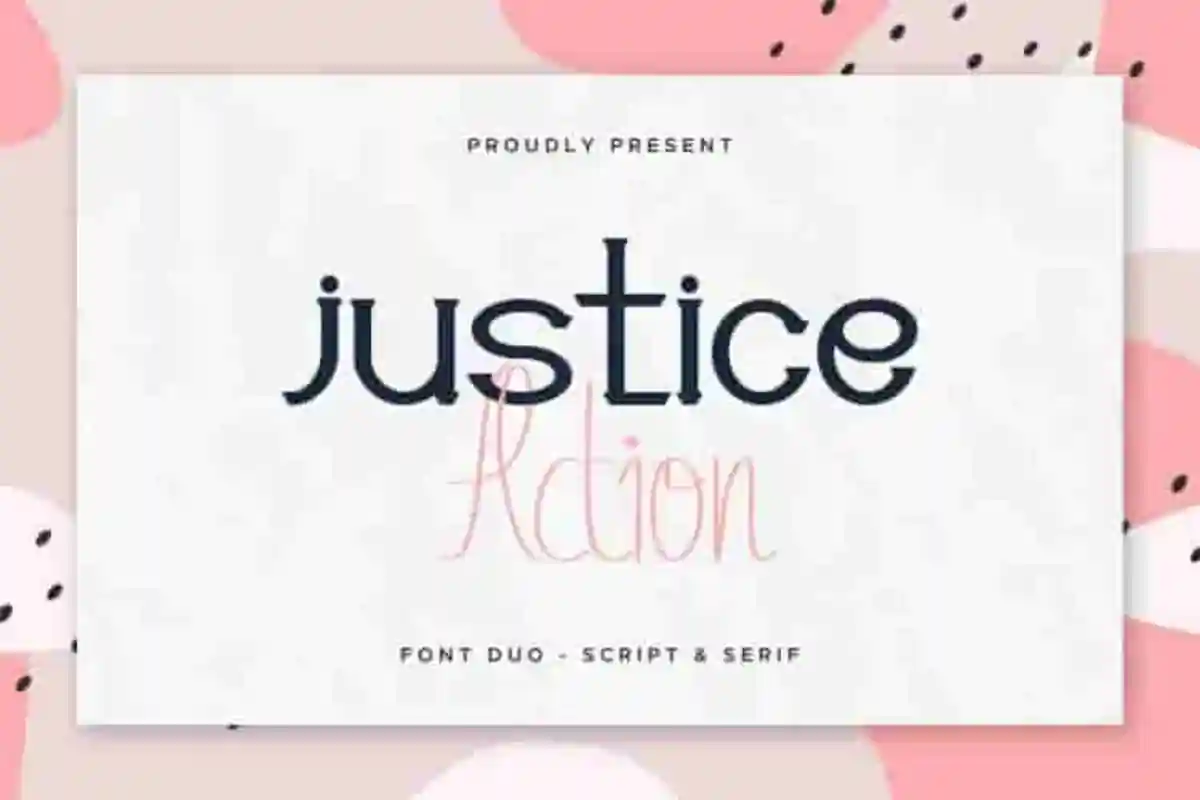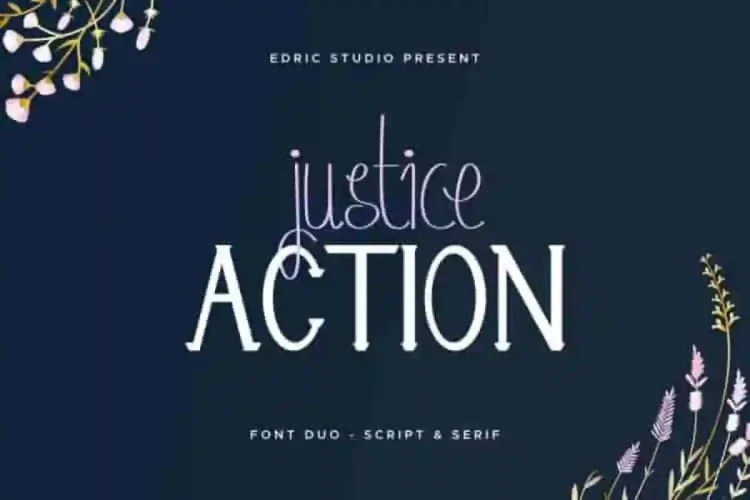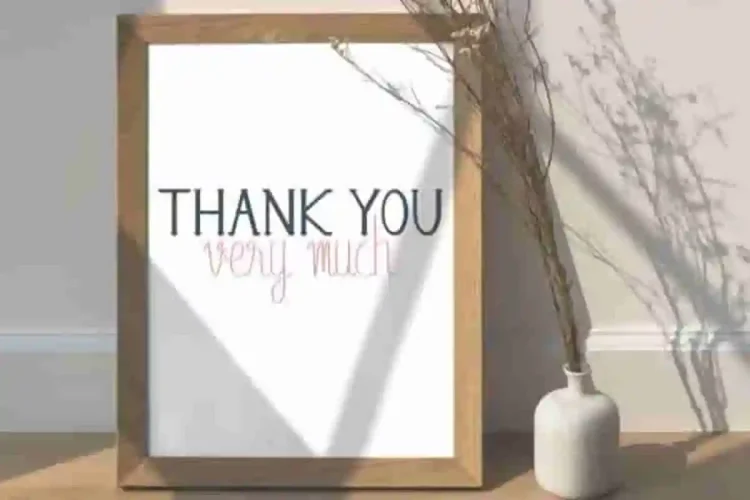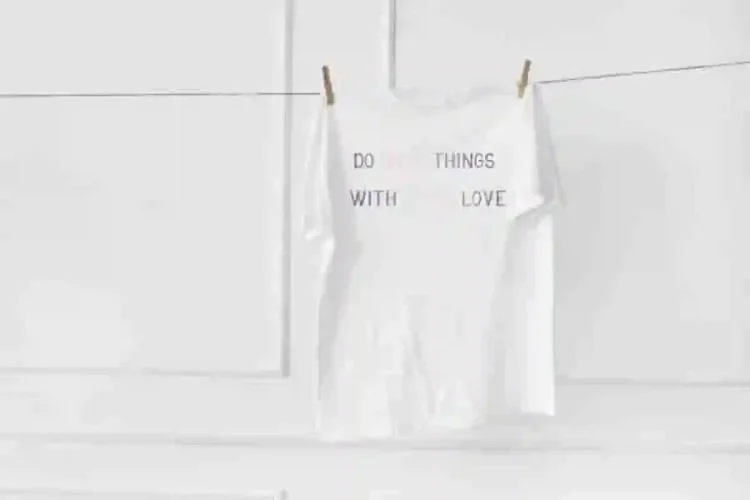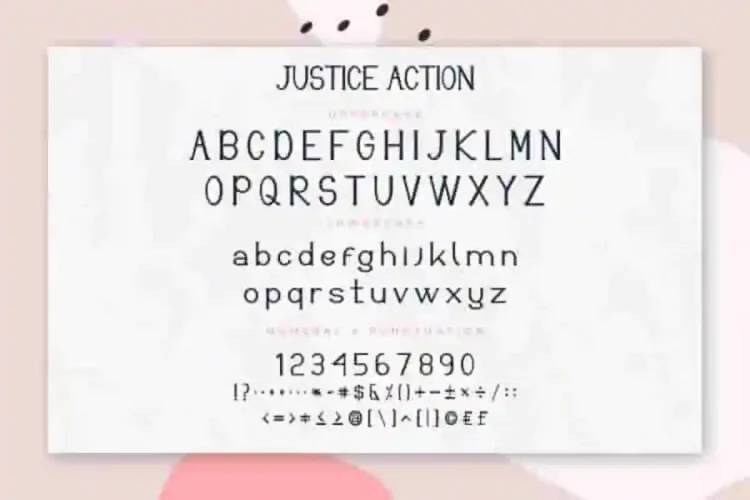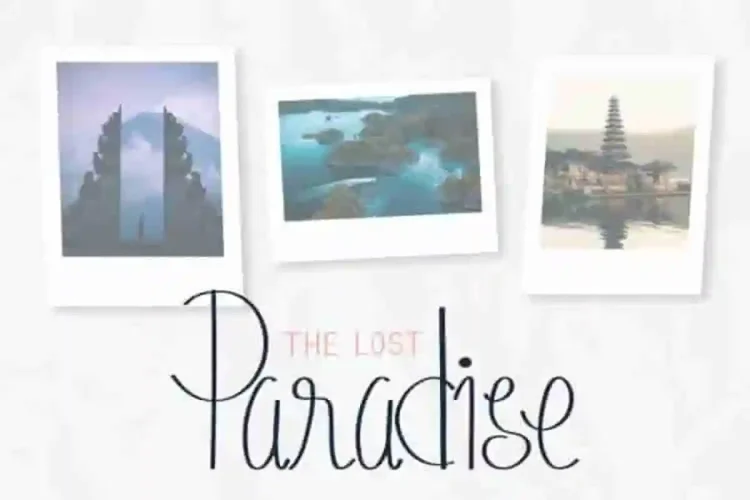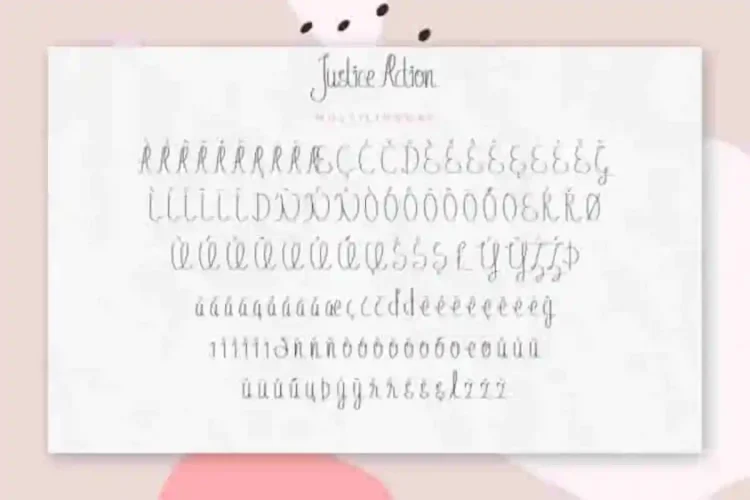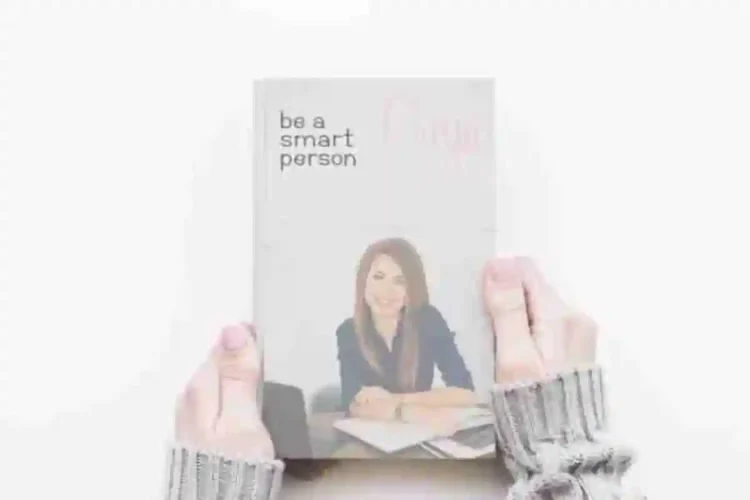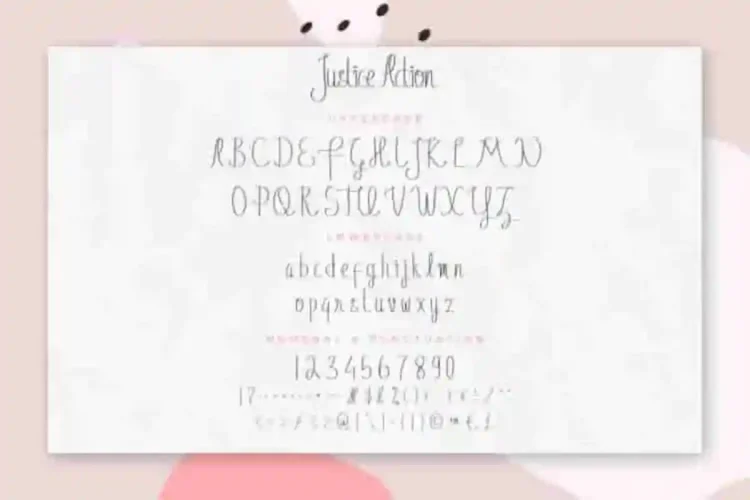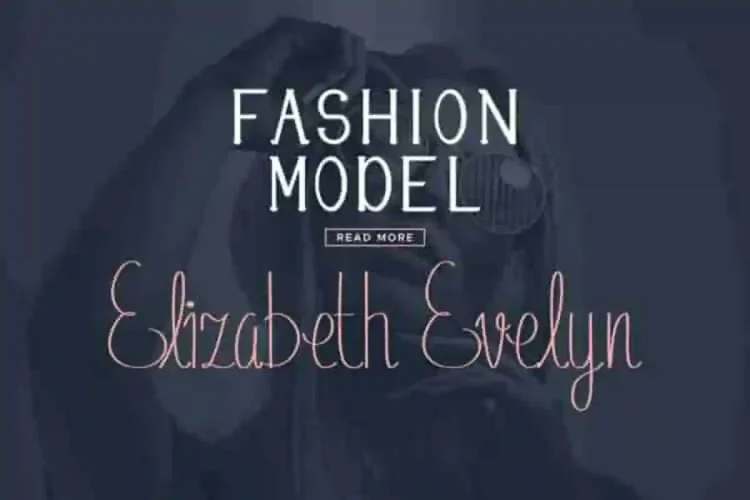
Justice Action Calligraphy Script Font Duo
Our newest font creation : Justice Action Calligraphy Script Font Duo
This is a Font Duo Family, handcrafted from our Studio here in Indonesia. The artists/designers of this beautiful tyeface are Widiyanti, Renata and Suci.
Justice Action Calligraphy Script Font Duo is an exclusive font family with two different styles. This font has a stunning characters set, perfectly managed with well spaced and kerning.
Justice Action Calligraphy Script Font Duo will be great for any projects including : branding, logo, stationery, business card, signage, flyer, brochure etc. Almost all industries will be match for this typeface: wedding, events, real estate, architect, law firm, florist, gardening, makeup artist, travel, hotel, musician etc.